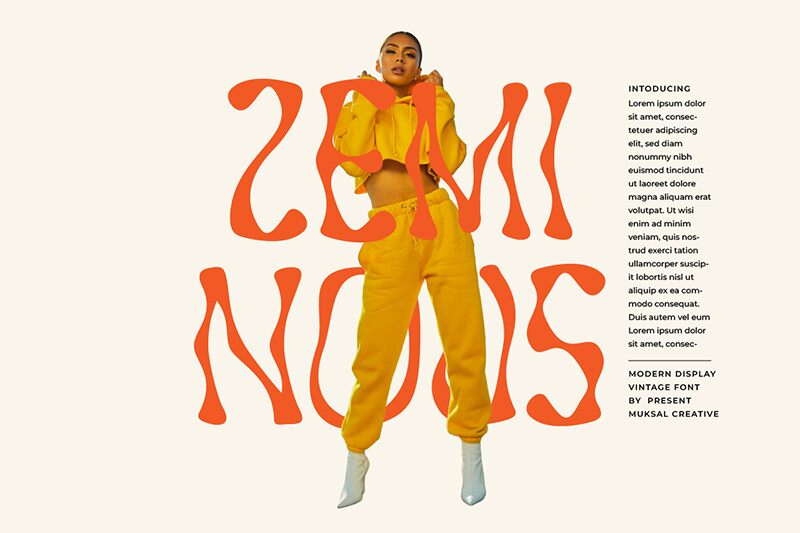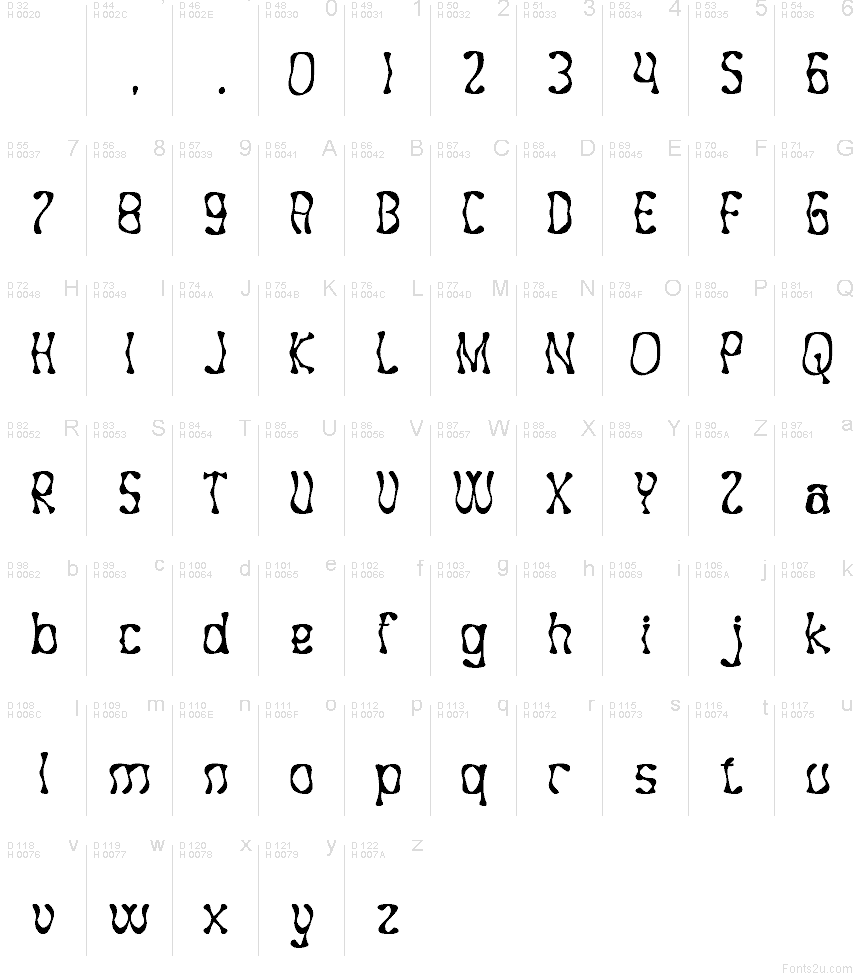
Zeminous Regular
Zeminous font by Muksal Creative is a free distorted display typeface that looks like letters melting under a slow, strange heat. Each form ripples with organic curves and uneven widths, giving words a fluid, otherworldly motion. The texture feels inky and hand-poured, as if the text might still be drying on the page, adding a moody, slightly eerie character to anything it touches.
Using Zeminous, you can push titles and logos for horror posters, psychedelic event flyers, indie album covers, zines, game splash screens, and surreal social graphics into truly memorable territory. This free font works best at large sizes, where its warped details can breathe; pair it with a clean, neutral sans serif for small copy to keep everything readable while Zeminous steals the spotlight.